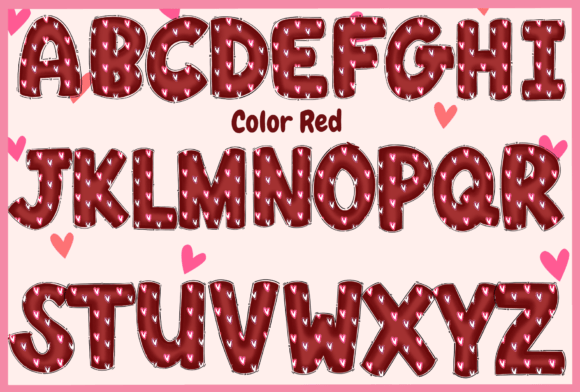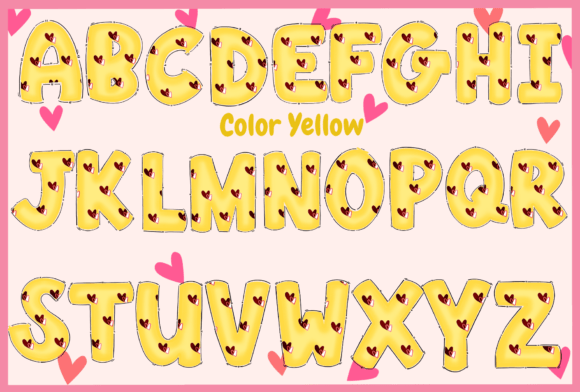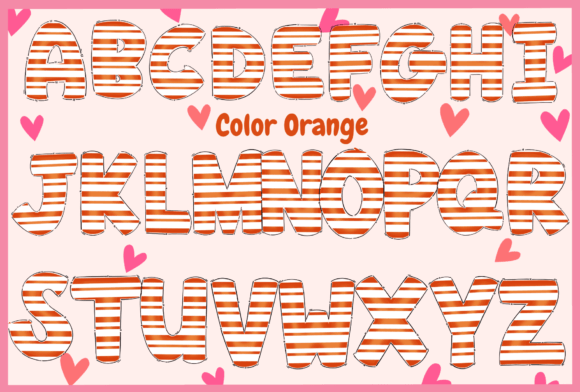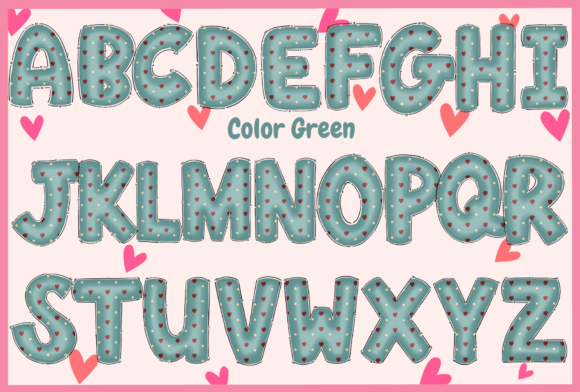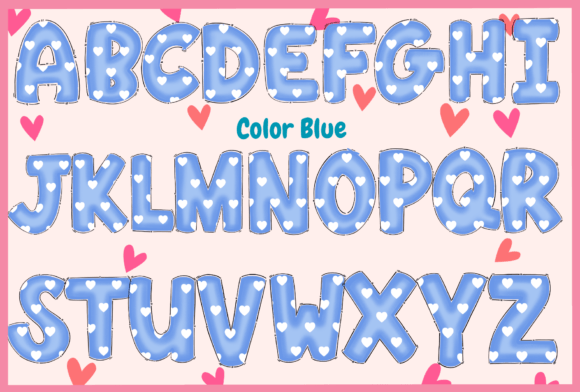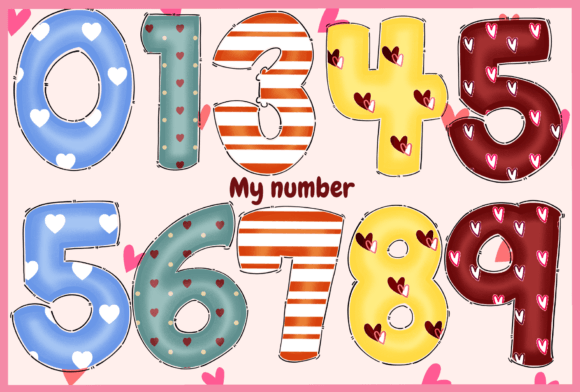
Introduction to Christmas Color Set 3 Font
Super cute handwriting font with a simple style, perfect for educational materials, presentations, advertising, illustrations, and versatile applications.